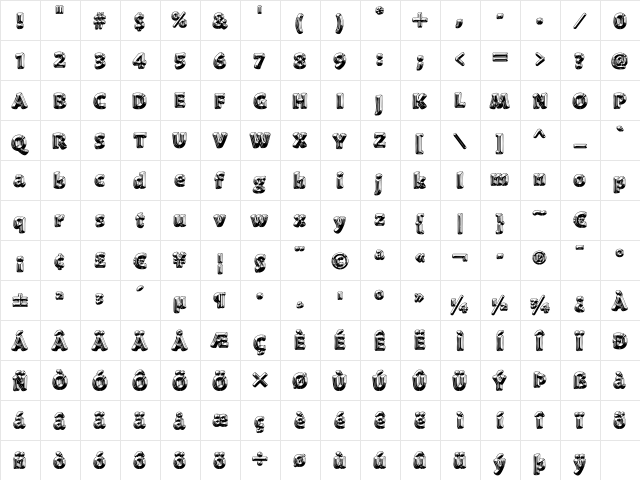
WoodsWorld 'Deluxe' Regular
Design Context for WoodsWorld 'Deluxe' Typeface
WoodsWorld 'Deluxe' taps into classic Western woodtype traditions — bold, characterful, and impossible to ignore.
Perfect for barbecue restaurants, country music branding, vintage poster design, and rustic packaging.
Font Pairing: Combine WoodsWorld 'Deluxe' with a simple slab or neutral sans — period-accurate companions reinforce the vintage feel without competing for attention.
Pro Tip: Pair WoodsWorld 'Deluxe' with aged textures or distressed backgrounds to amplify its vintage personality.